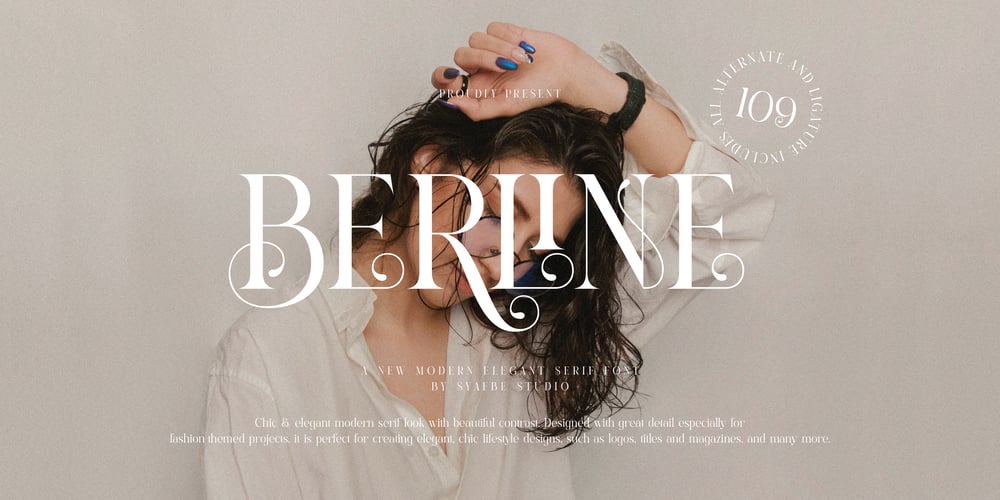
Berline Font Family was designed by Syafwan Mus and published by Syafbe. Berline contains 1 styles and family package options. Chic & elegant modern serif look with beautiful contrast. Designed with great detail especially for fashion-themed projects, it is perfect for creating elegant, chic lifestyle designs, such as logos, titles and magazines, and many more.